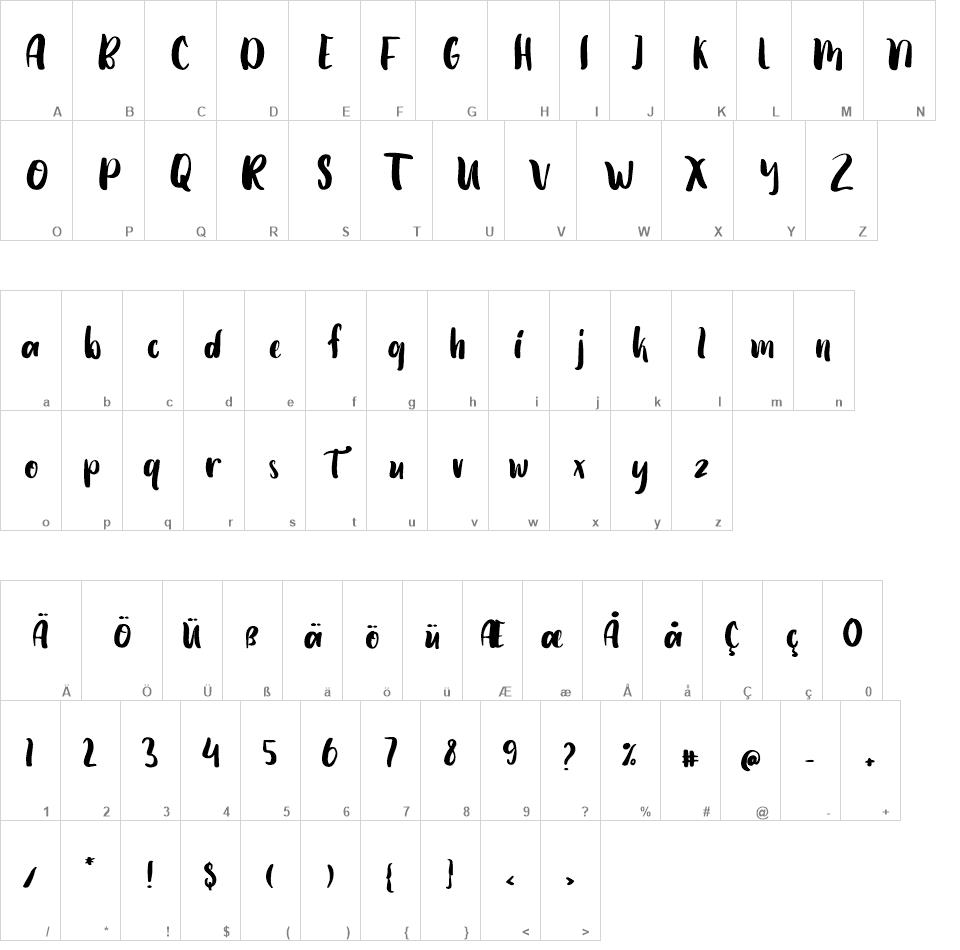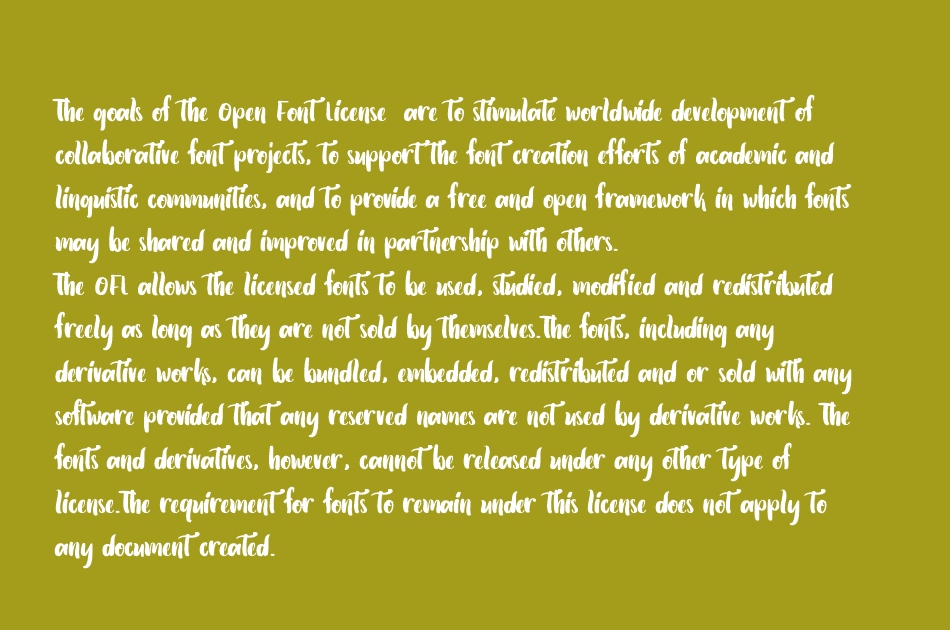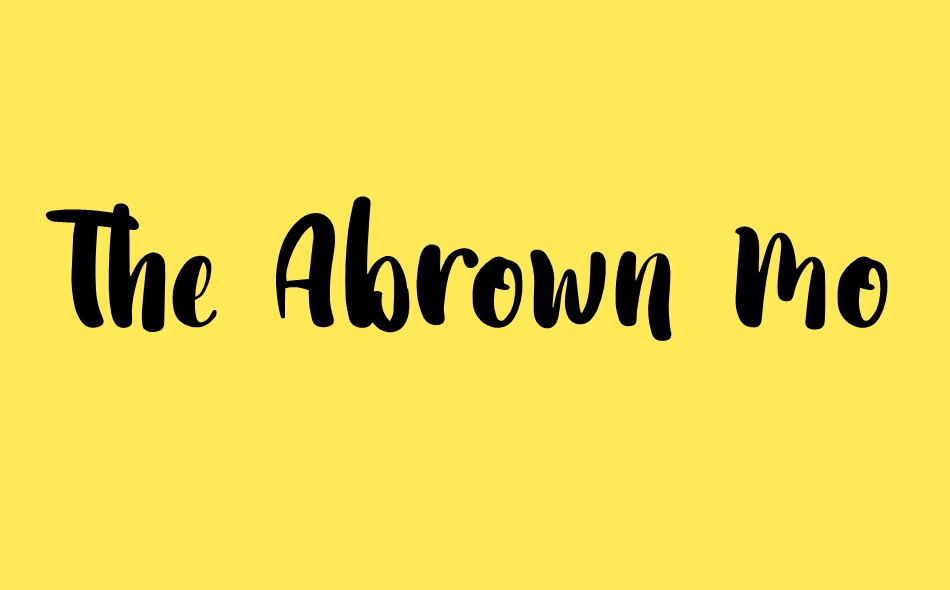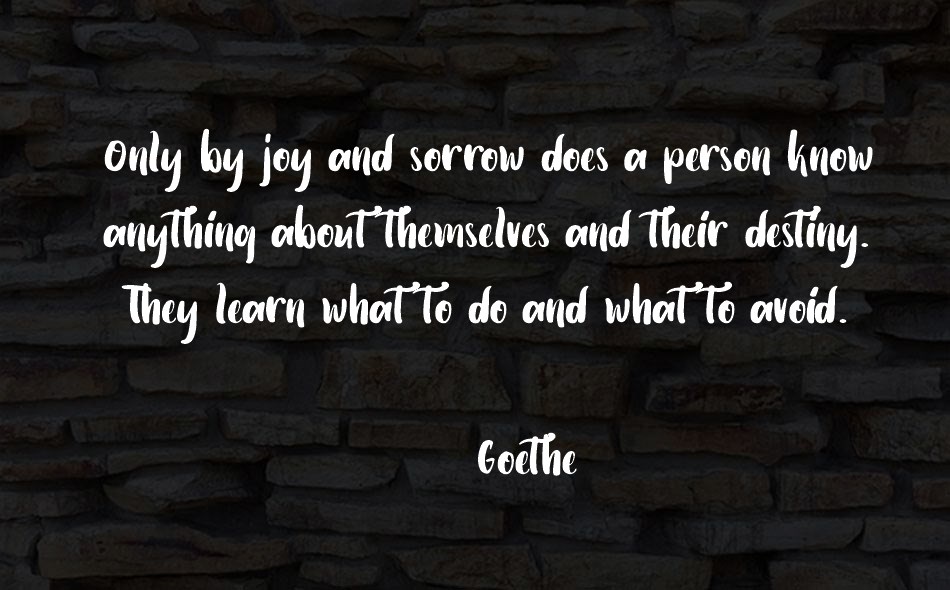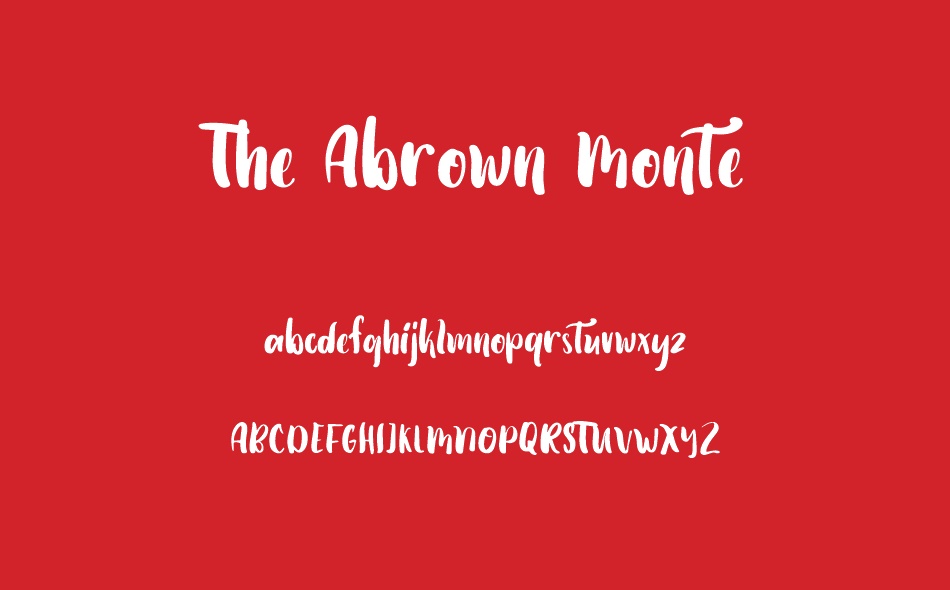
The Abrown Monte font
The Abrown Monte is a elegant handwritten font. It brings a beautiful and attractive typeface. Made for any professional project branding. It is the best for logos, branding, wedding and quotes.